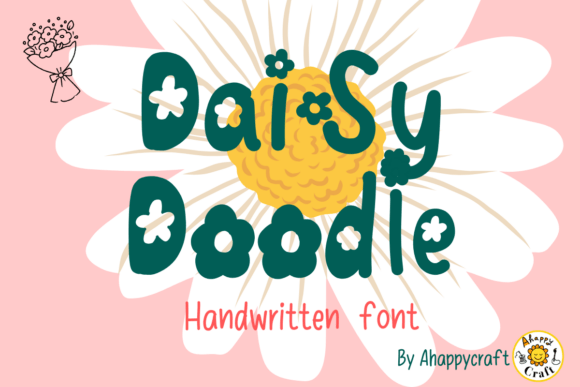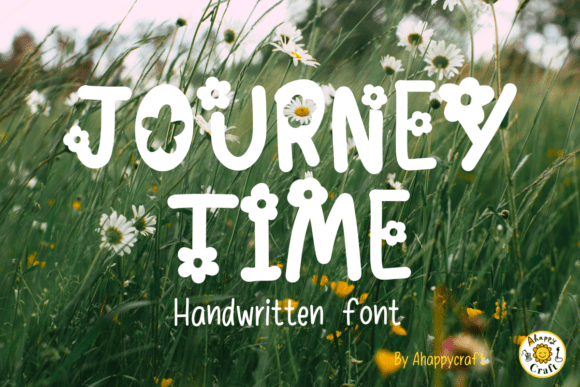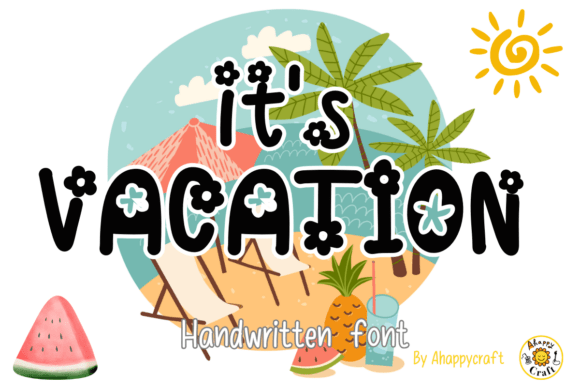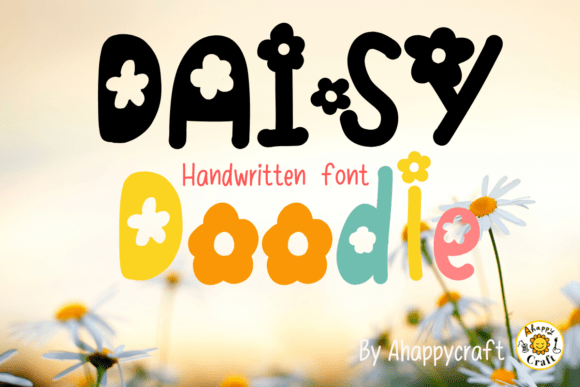
Introduction to Daisy Doodle Font
Introducing Daisy Doodle, a charmingly delightful handwritten font that seamlessly merges whimsicality with a decorative doodle style.
Bursting with fun and freshness, Daisy Doodle shines in its versatility, perfect for injecting creativity and joy into your design projects This comprehensive set includes complete English alphabets, numbers, and symbols and is provided in two readily usable font files – OTF and TTF formats.